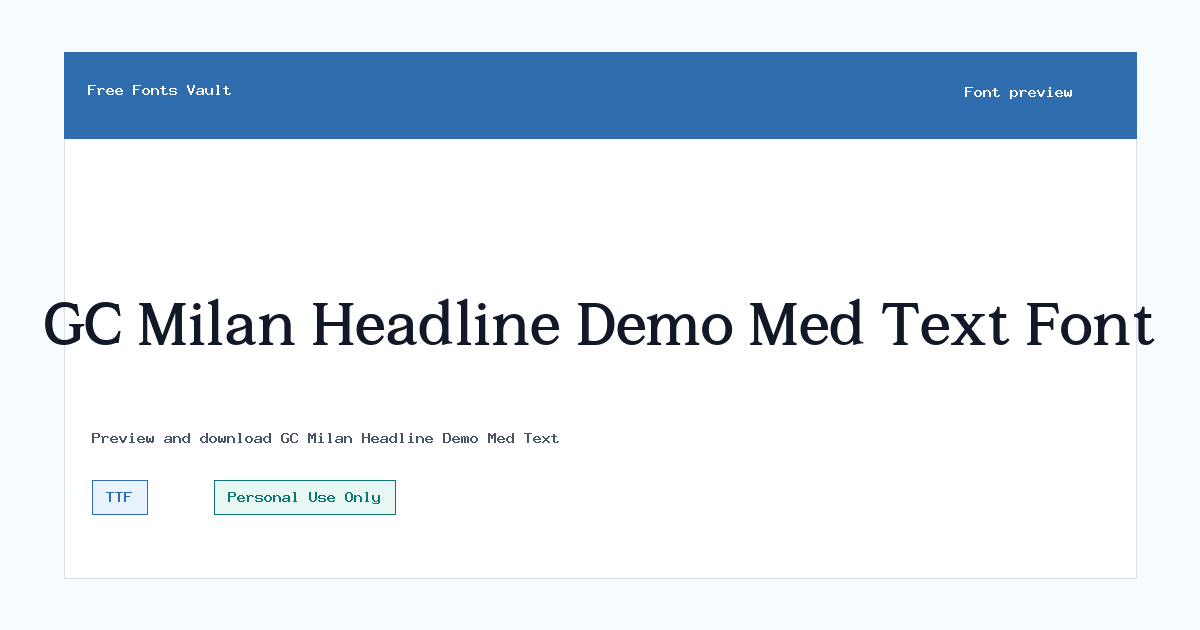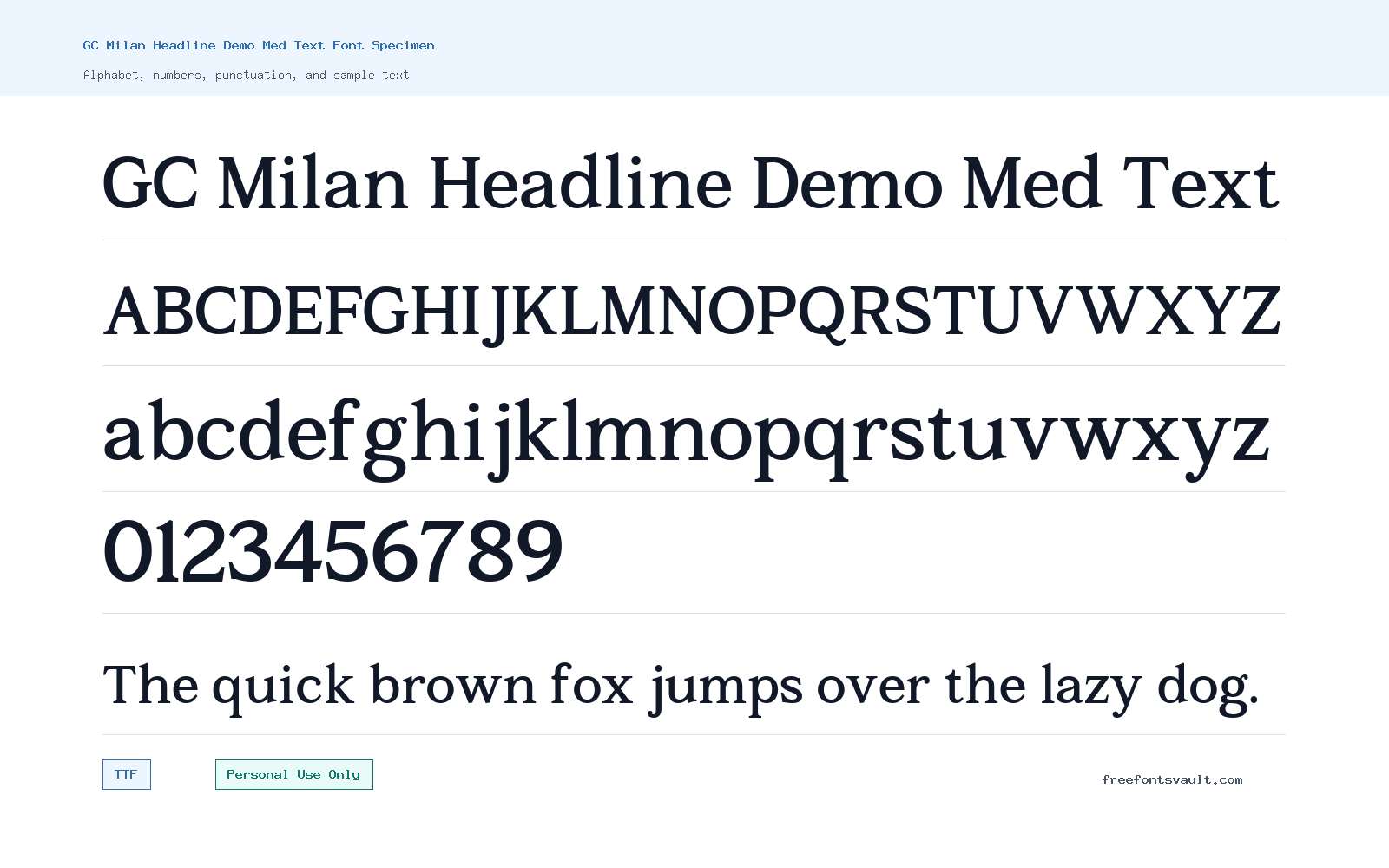
GC Milan Headline Demo Med Text
- Designer Zainaldi Ibrahim of Glyphonic
GC Milan Headline Demo Med Text font.
GC Milan Headline Demo Med Text is a TTF demo font from the GC Milan Headline family, designed for personal projects where a firmer headline or text-focused serif style is needed.
About GC Milan Headline Demo Med Text
GC Milan Headline Demo Med Text sits in a practical middle space: it is not described as a heavy display cut, and its “Med Text” name makes it useful to test where a headline needs more control than a large poster style. Use it for short titles, editorial-style headings, quote graphics, blog banners, portfolio mockups, or personal layout experiments. The font name also connects it to the GC Milan Headline Serif Font Family, so visitors should treat it as part of a larger family rather than a standalone commercial package.
- Medium text-oriented demo member of the GC Milan Headline Serif Font Family
- Personal headline tests, blog title mockups, quote cards, and editorial-style graphics
- Portfolio layouts, school projects, non-commercial branding drafts, and font pairing experiments
GC Milan Headline Demo Med Text is credited to Zainaldi Ibrahim of Glyphonic.
Test the font with your real title before using it in a finished design. Check spacing in all-caps words, try both short and medium-length headings, and avoid relying on it for dense body text until you confirm it remains comfortable to read at your chosen size.
Who designed GC Milan Headline Demo Med Text?
The font is credited to Zainaldi Ibrahim of Glyphonic.
What is this font best used for?
It is best suited for personal headline previews, title mockups, editorial graphics, quote images, and layout experiments where a medium text-style serif can be tested.